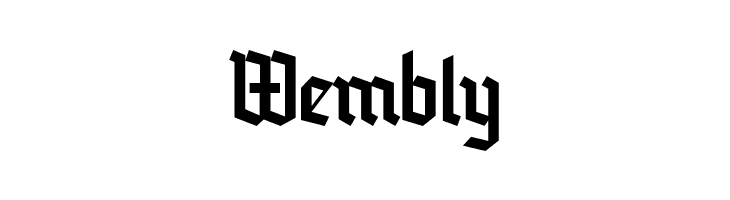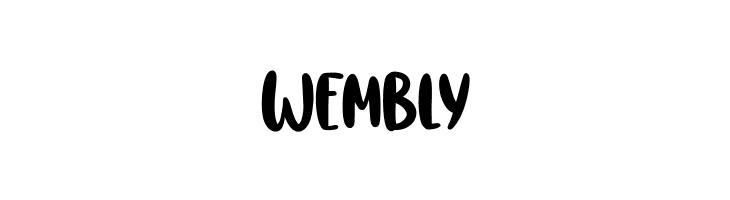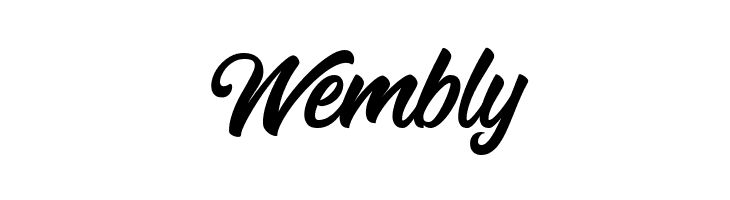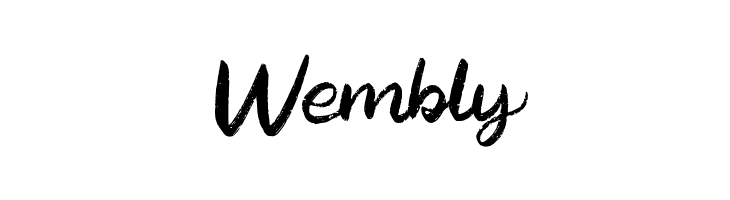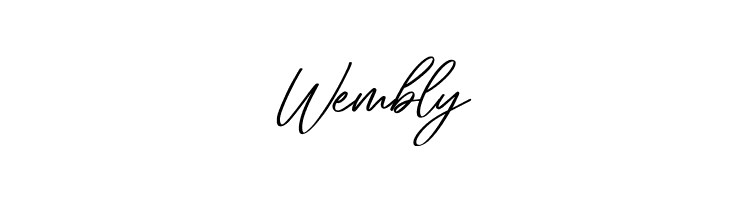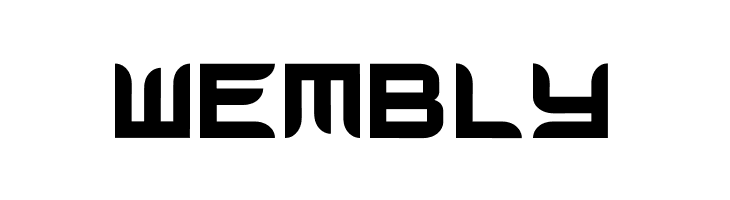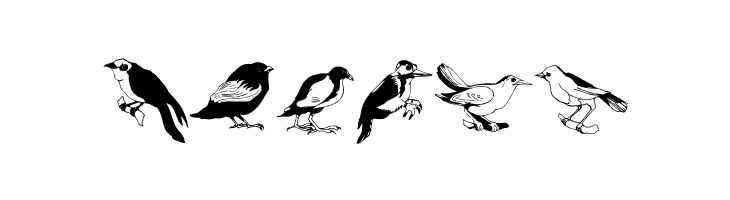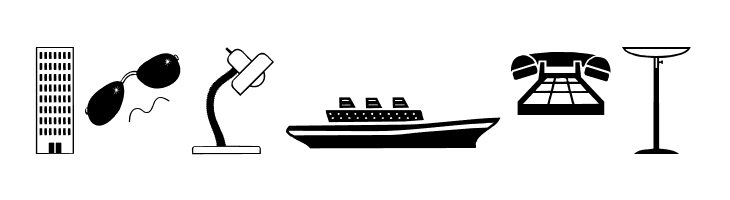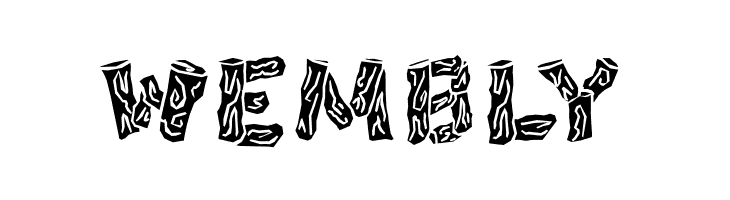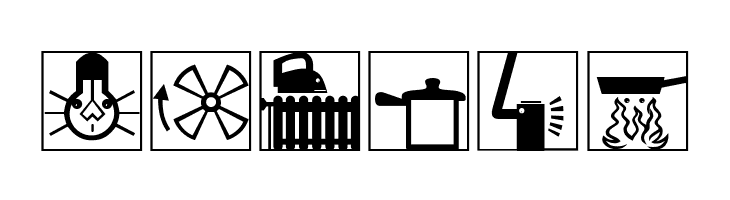
A dynamic and elegant cursive script font with smooth connections and moderate contrast.
Decorative pictorial font with African art and abstract motifs.
A bold and abstract collection of graphic symbols with a playful yet sophisticated style.
An illustrative, scene-based decorative font with high visual complexity.
Hand-drawn blackbird illustrations used as character glyphs.
A playful, handwritten font with a casual, chalkboard style.
A playful, hand-drawn script font with a textured, stamp-like finish.
A bold, blocky font with a vintage yet modern appeal, perfect for impactful designs.
A bold, modern sans-serif font with a strong visual impact.
A display font made from human head silhouettes.
A bold, playful font with rounded, bubbly characters.
An artistic, image-based decorative font with linocut illustration style.
A display font made from animal and human silhouettes.
A bold, calligraphic font with dynamic strokes and a handwritten feel.
A bold, expressive script font with a hand-painted, brush-like texture.
A bold, playful font with a hand-drawn, rounded style.
An elegant, flowing script font with thin, delicate strokes and a natural handwriting style.
A dynamic and elegant script font with fluid, cursive strokes.
A rugged, textured font with a splintered, edgy design.
An abstract, brushstroke-inspired font with a bold and chaotic style.
Minimalist iconographic font with black and white pictograms.
Decorative pictogram font with hand signs, symbols, and motifs in black-and-white squares.
A sophisticated script font with fluid, cursive strokes and elegant flourishes.
A bold, futuristic font with sharp, angular lines and a strong geometric structure.
A bold, playful handwritten font with smooth curves and rounded edges.
A fluid and elegant handwritten font with connected strokes and a dynamic slant.
A bold, vintage serif font with a distressed, handcrafted look.
A bold, vintage serif font with rounded serifs and a slightly condensed style.
A bold, cursive font with smooth, flowing lines and elegant curves.
A bold, geometric font with a modern, structured design.
A geometric, modern font with clean, angular lines and a technical appearance.
A bold blackletter font with sharp, angular lines and a gothic aesthetic.
A bold, angular Blackletter-inspired font with a modern edge.
A bold, gothic blackletter font with sharp, angular lines.